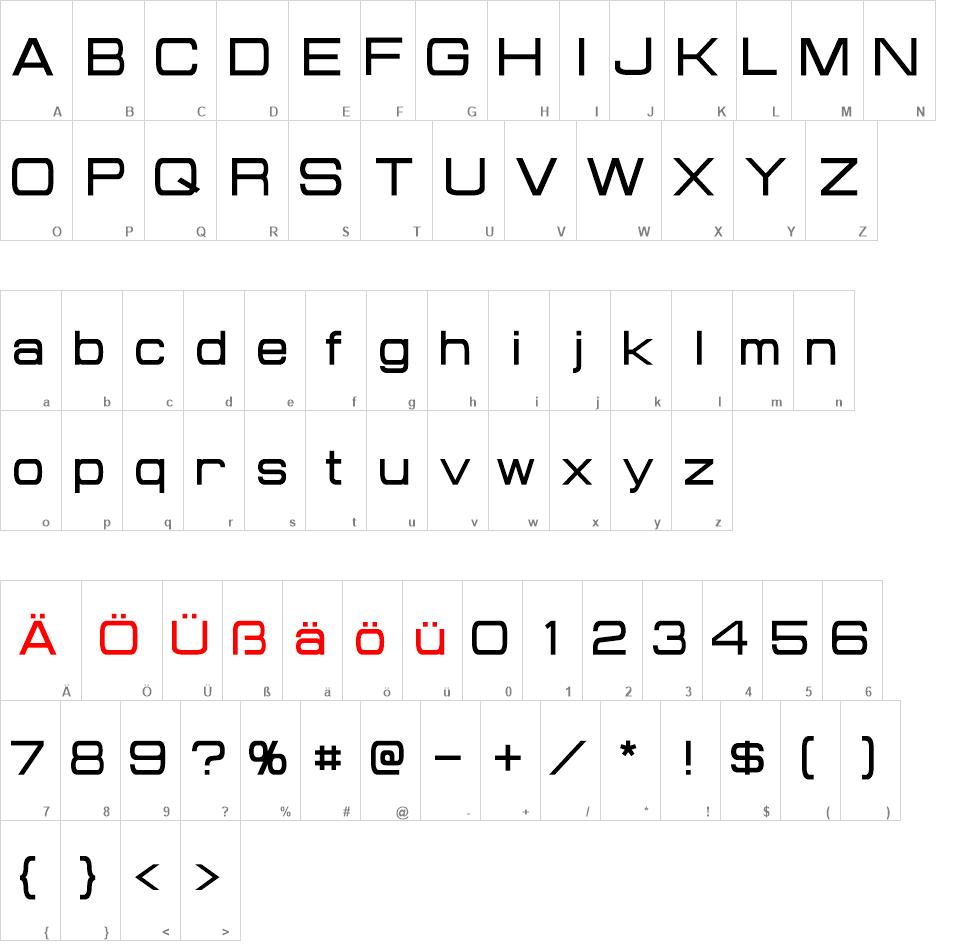
Probert
Probert (Updated!)
Probert is a simple, technological-looking font based on the headers and readouts from Franz Joseph's legendary "Star Trek: Technical Manual". Includes full alphabet, extended punctuation, and Euro. Includes regular, bold, italic, bold-italic, black, and black-italic versions.
* Spacing and kerning update
* Polish letters added
* Condensed faces added